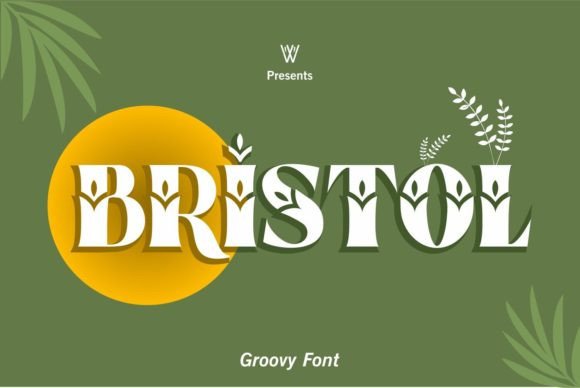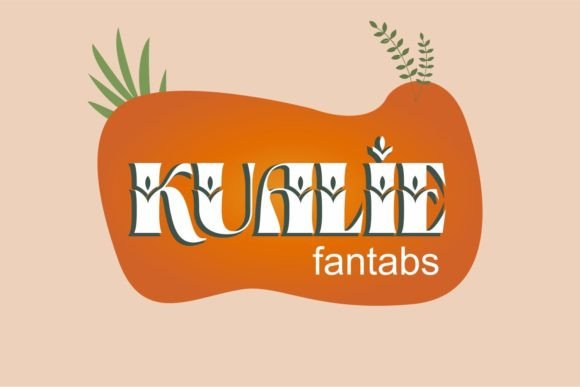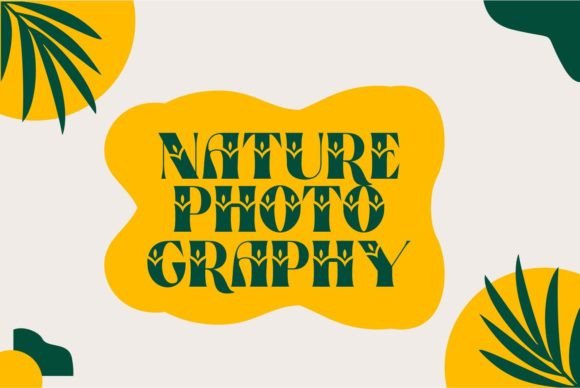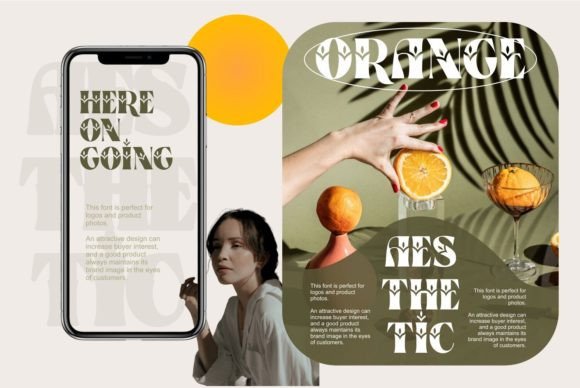
Bristol Font: Groovy Serif for Eye-Catching Social Media Design
About the Bristol Font
We are excited to introduce Bristol Font, a must-have typeface for any serious designer. Bristol is an elegant and bold serif font. Fall in love with its incredibly
versatile style and use it to create gorgeous wedding invitations, beautiful stationary art, eye-catching social media posts, and much more!
Bristol’s strong serifs and confident letterforms make it ideal for headlines, logos, and short-form text in branding materials and posters. It also excels in applications requiring a touch of classic elegance, such as wedding invitations or high-end packaging. However, its bolder weight isn’t well-suited for body text or UI elements where readability over long passages is crucial.
For optimal visual balance, pair Bristol with a clean sans-serif like Open Sans or Lato for body copy, creating a sophisticated contrast. A playful script font such as Great Vibes can add a touch of whimsy to projects where a more relaxed feel is desired. Alternatively, a geometric sans-serif like Montserrat can emphasize Bristol’s bold elegance in a modern context.
Bristol projects an air of sophisticated boldness, conveying confidence and a touch of timeless charm. Brands aiming for a premium feel or a classic yet modern aesthetic will find it particularly effective.
Bristol Font Usage Examples
Bristol Font Example